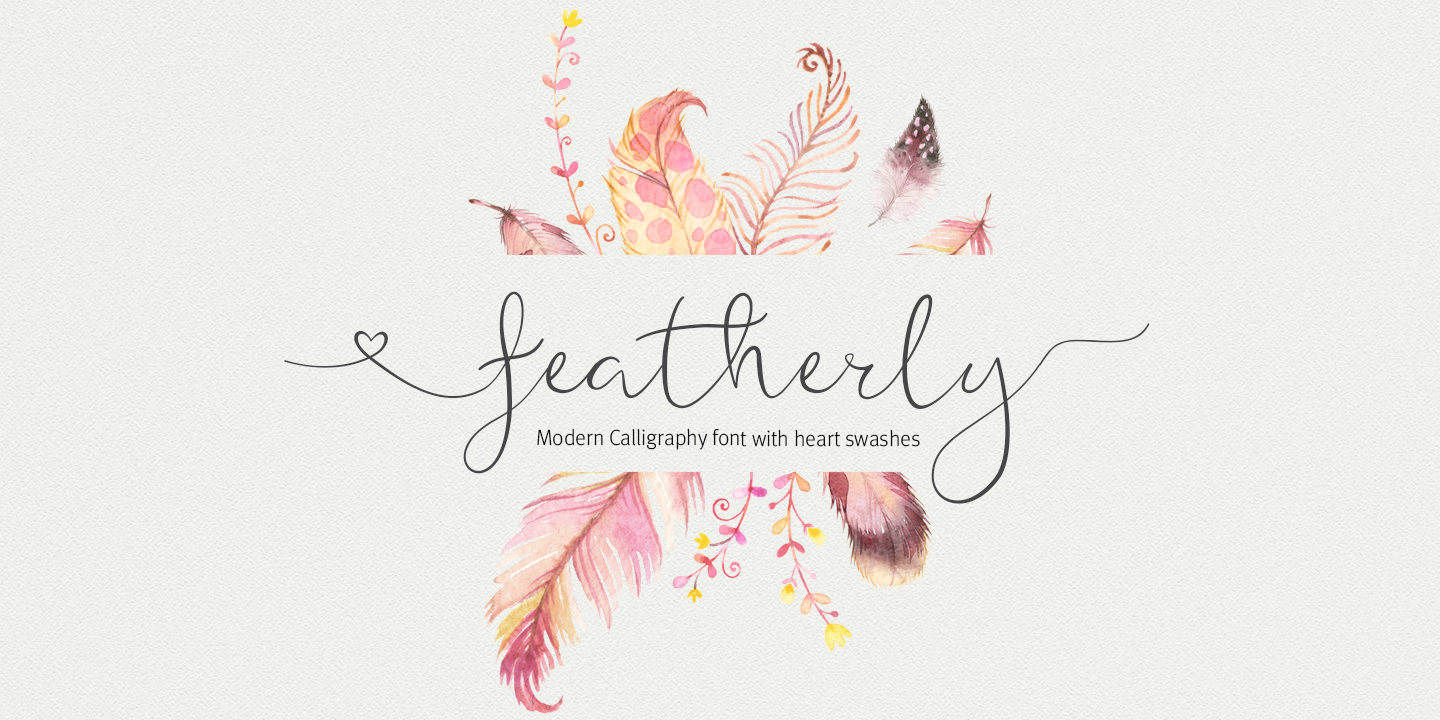
Featherly Font is ideal for bird watching guides, nature conservation campaigns, ornithology publications, feather art exhibitions, wildlife photography portfolios, bird sanctuary branding, avian education materials, delicate jewelry designs, angelic themed projects, and ethereal spiritual communications.
What makes Featherly Font exciting is its delicate grace and ethereal lightness that captures the essence of flight with weightless elegance and bird-like sophistication. This enchanting typeface embodies the spirit of avian beauty with its floating character forms and feather-inspired proportions that evoke downy feathers drifting on gentle breezes, birds soaring effortlessly through azure skies, and the kind of weightless grace that makes flight seem like poetry in motion. The font's ethereal character creates an immediate sense of lightness and the kind of delicate beauty that touches the soul with gentle inspiration.
Featherly Font family includes regular weight with delicately crafted character designs featuring feather-light curves and avian proportions. The typeface maintains excellent readability while showcasing its distinctive graceful personality through softly designed letterforms that seem to float like individual feathers carried by warm thermals toward endless horizons.
Nature designers consistently choose Featherly Font Free Download for projects requiring authentic avian appeal and ethereal credibility. This remarkable typeface brings the grace of bird flight to brand communications, combining delicate aesthetics with natural elegance to create memorable wildlife experiences. The delicately designed characters ensure graceful positioning across all applications, making it essential for nature organizations, wildlife sanctuaries, and any institution seeking to communicate the transformative power of natural grace and the ethereal beauty that comes from celebrating the weightless elegance of birds in flight through Featherly Font Free Download.